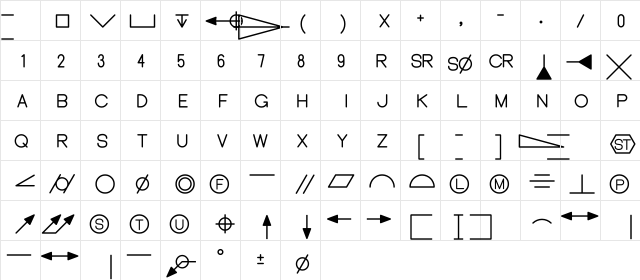
Y14.5M Medium
Design Context for Y14.5M Typeface
Y14.5M is a composed and adaptable typeface that performs quietly and consistently across a wide range of design contexts.